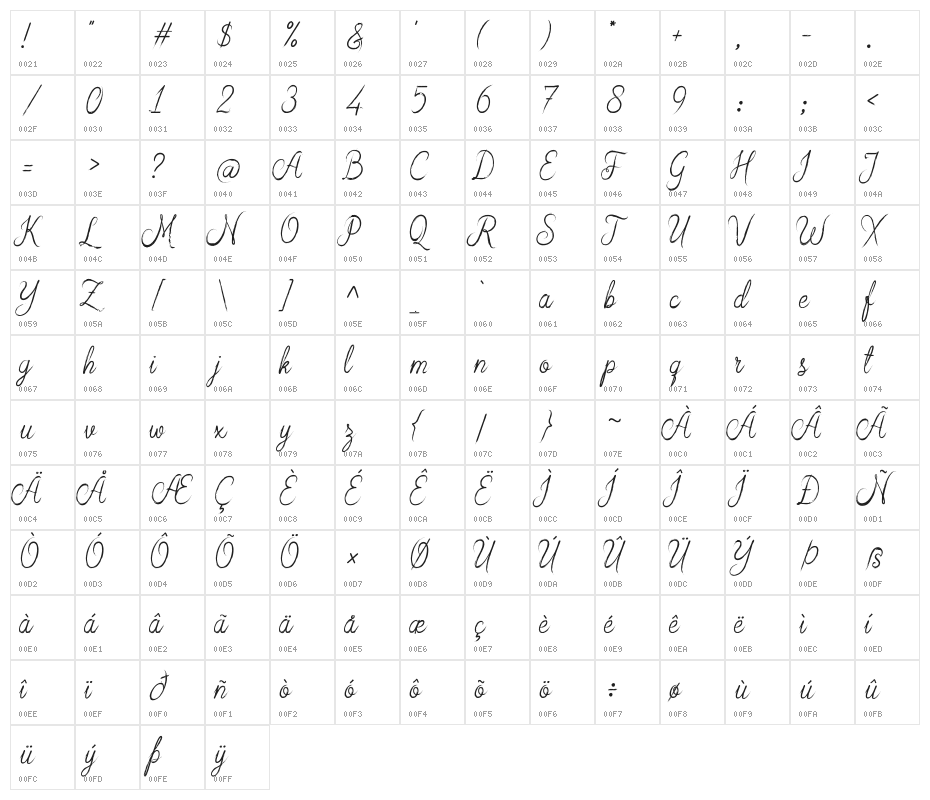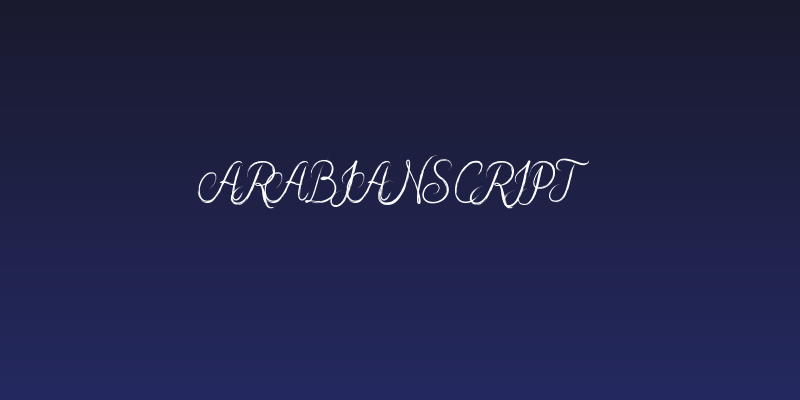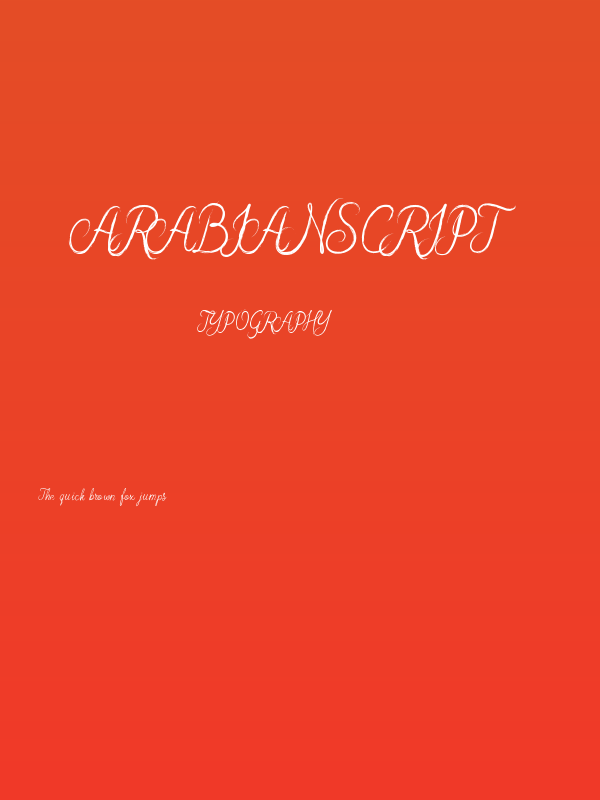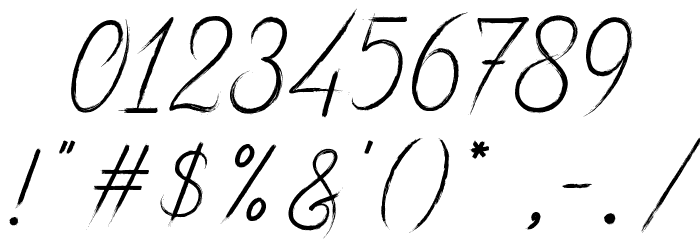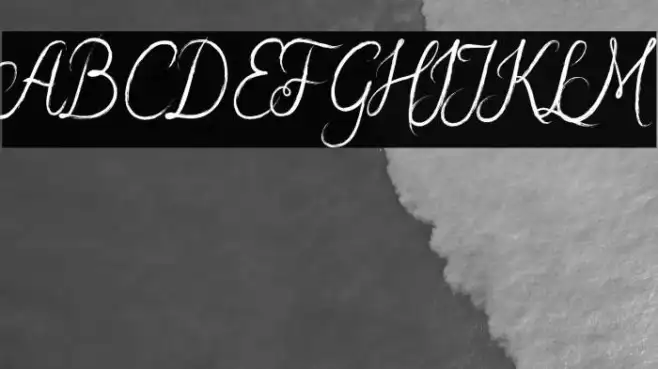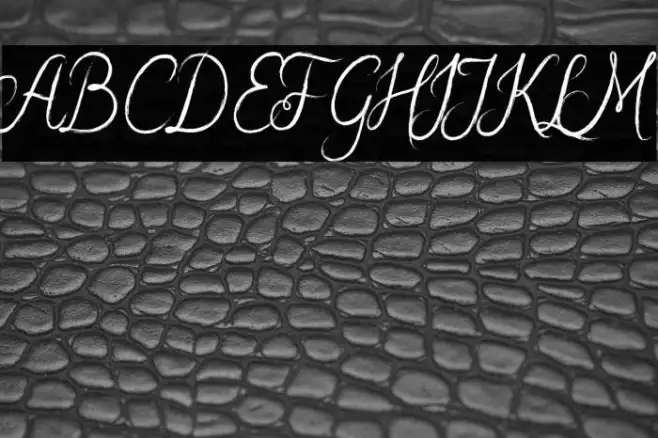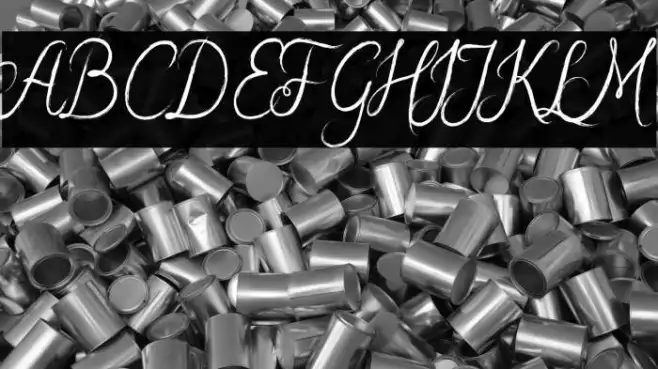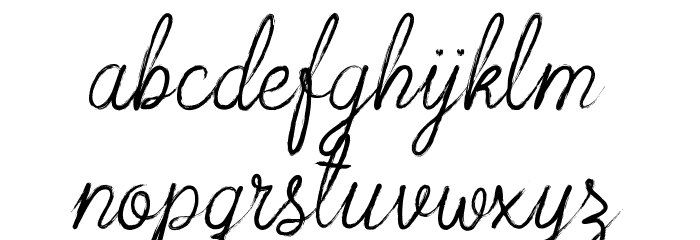
ArabianScript Font
ArabianScript Description
This elegant script font features flowing, interconnected letters with a calligraphic style. The uppercase letters are ornate and sweeping, while the lowercase letters maintain a consistent, graceful flow. The numerals are distinct yet harmonize well with the overall script style. Special characters are designed to complement the script, adding a touch of sophistication. The font's strokes vary in thickness, creating a dynamic and lively appearance. This font is ideal for projects that require a touch of elegance and formality, such as wedding invitations, certificates, or upscale branding.
| Overall Style | Elegant, Formal |
| Use Case | Headlines, Invitations, Branding |
| Proposed Projects | Wedding invitations, formal event programs, luxury branding, certificates. |